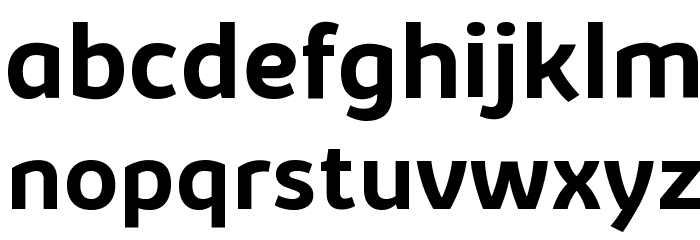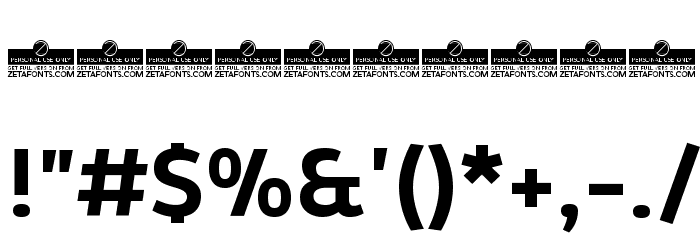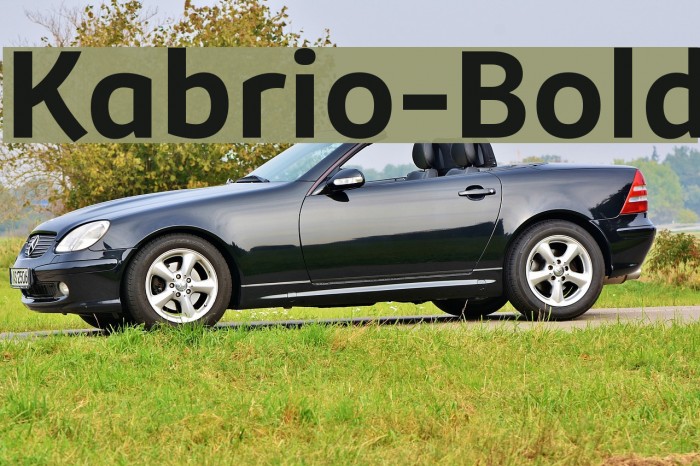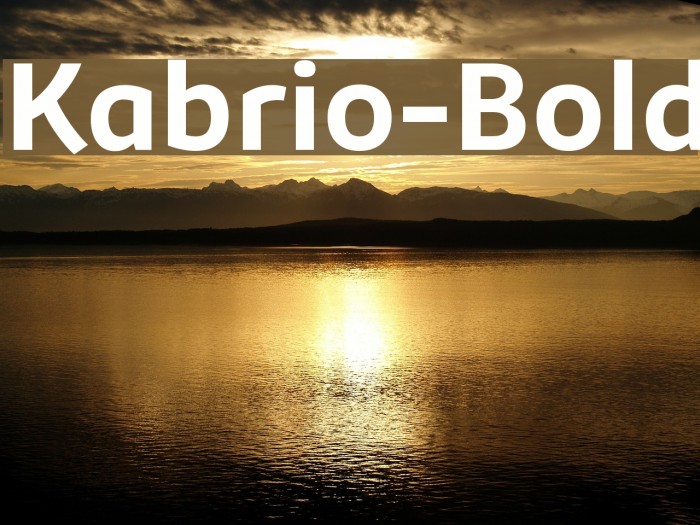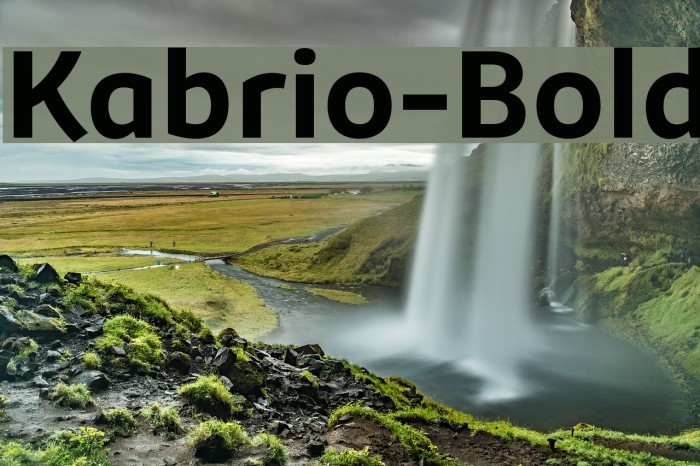
Kabrio-Bold Font
This typeface features a bold and modern design with clean lines and a strong presence. The characters are well-defined, offering excellent readability and a contemporary aesthetic. The uppercase and lowercase letters maintain a consistent weight, contributing to a cohesive look. The numerals and special characters are designed to match the overall style, ensuring versatility across various applications. Its simplicity and clarity make it suitable for a wide range of design projects.
A bold, modern typeface with clean lines and excellent readability.
- Proposed Projects: Ideal for branding, advertising, headlines, and digital media where a strong, modern presence is desired.
- Use Case: Headlines, Logos, Branding